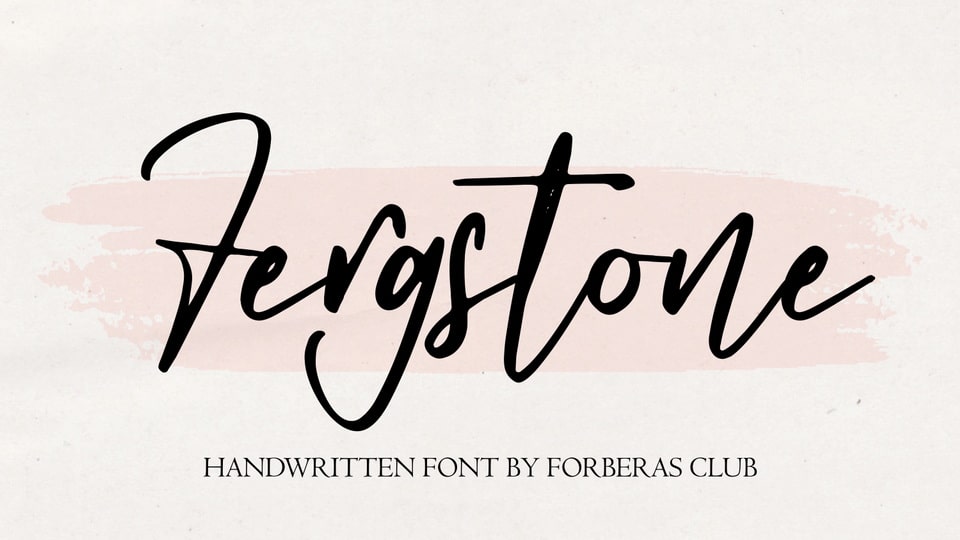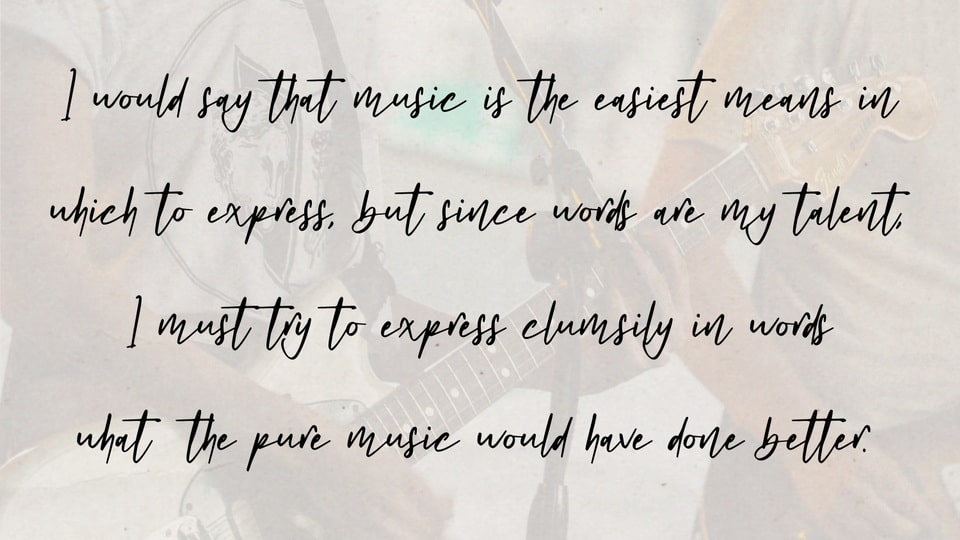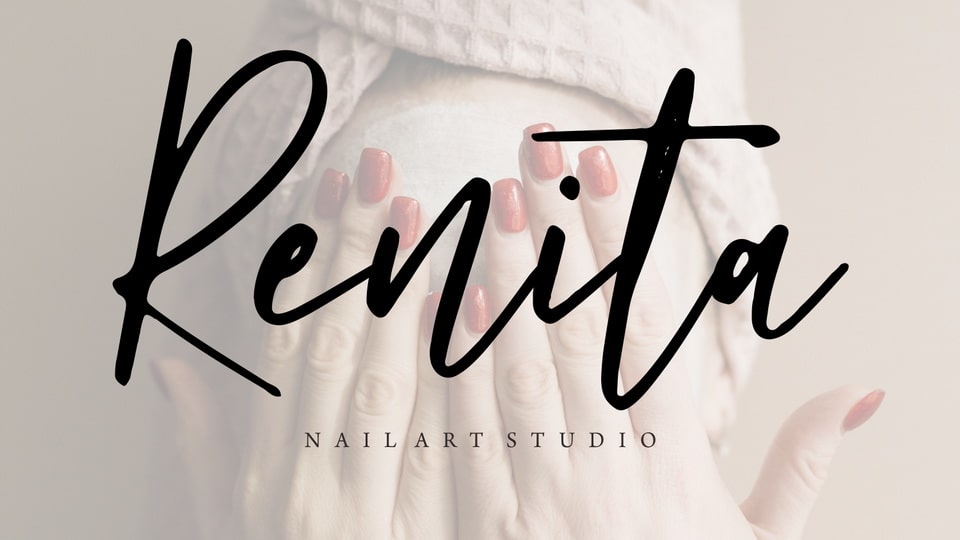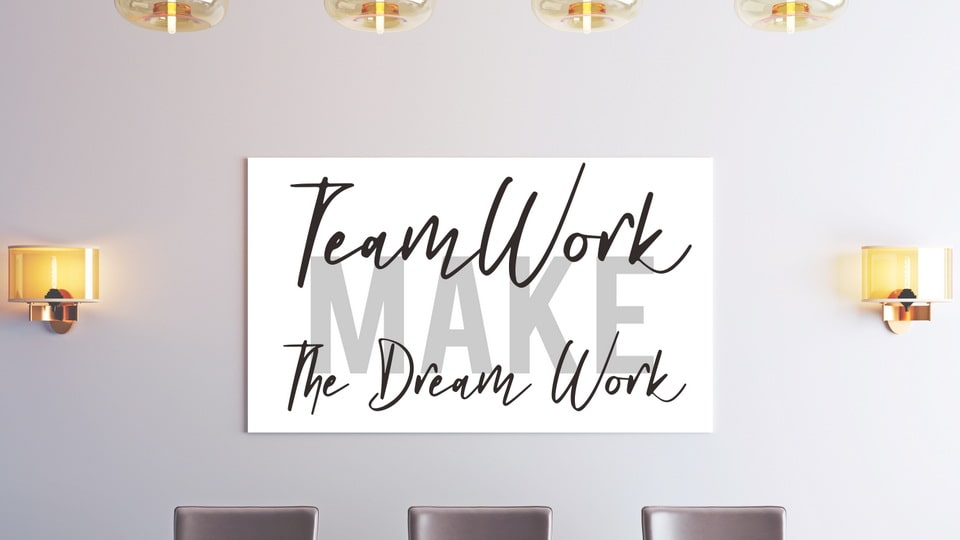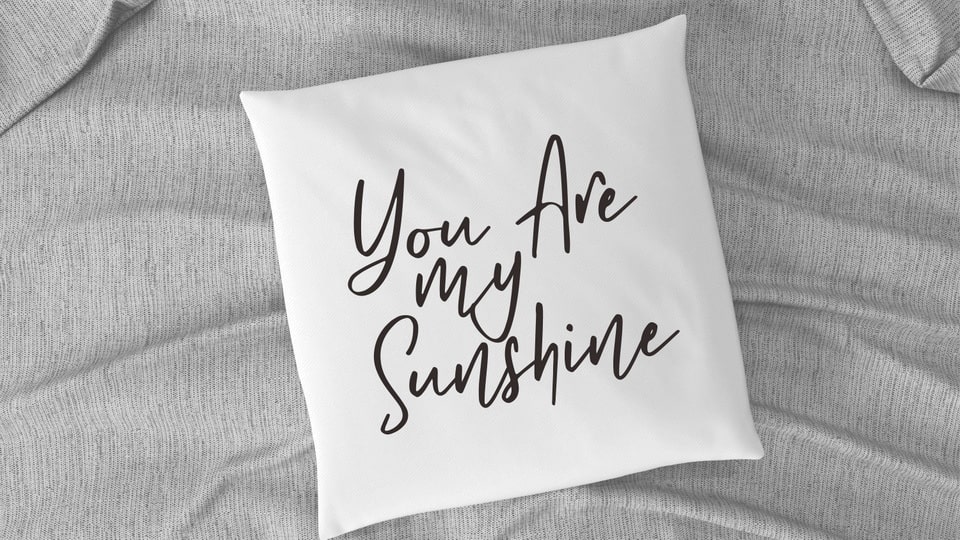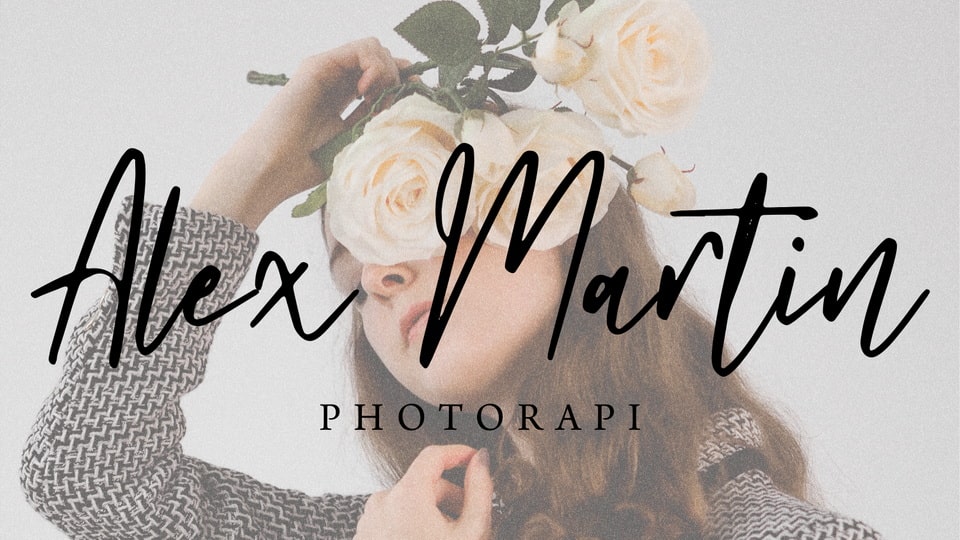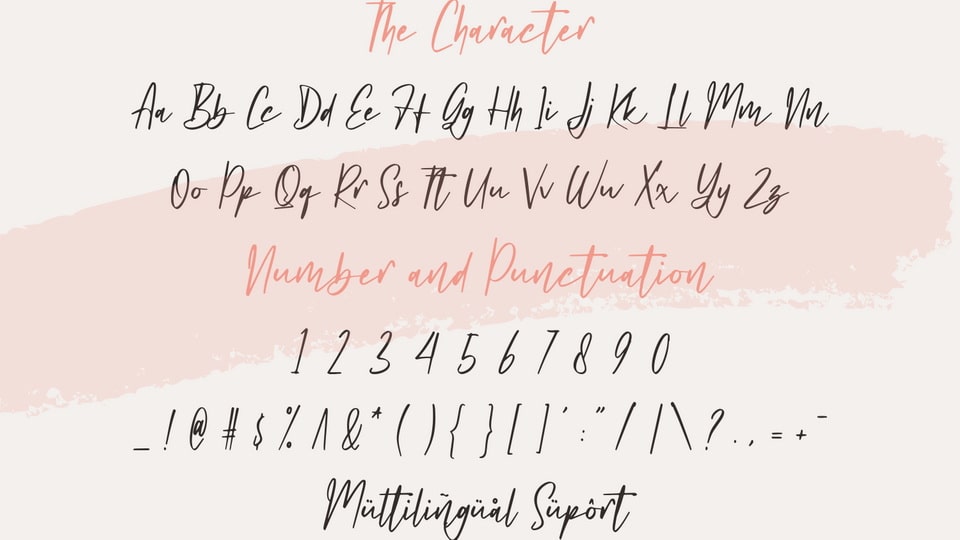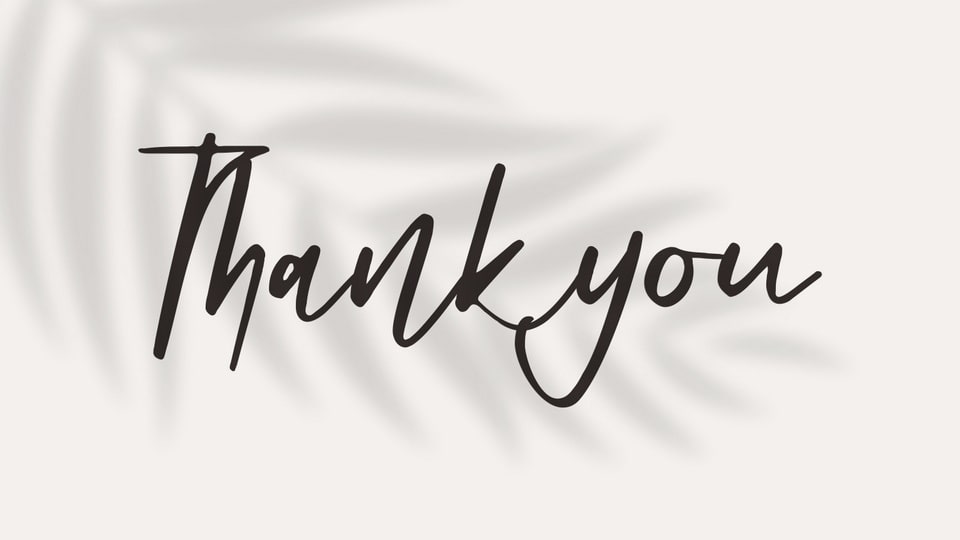
Fergstone is a flowing script font inspired by casual handwriting. It is especially designed for lettering, crafts, modern projects.
Fergstone font is perfect for creating modern and chic designs such as logos, packaging, editorials and more.